Futura100 and Abril in use
Two of our type families, Futura®100 and Abril, are the only typefaces used in the new issue of Eye Magazine.
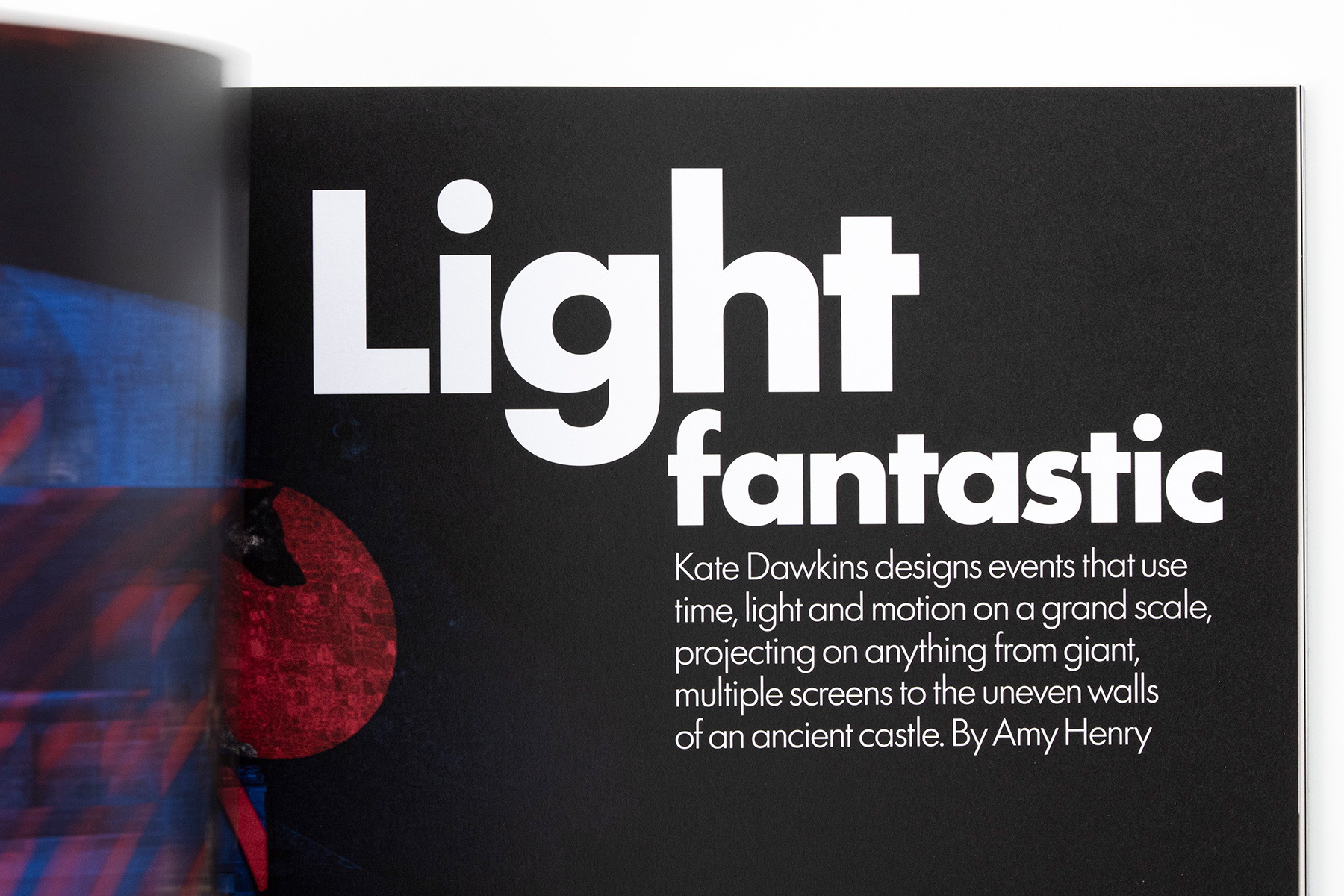
As a type foundry, we’re always delighted to see how our typefaces are being used. This joy was compounded when one of the world’s leading design journals, Eye Magazine, decided to use two of our type families exclusively in their newest issue.
The typefaces in question are our new Futura®100 multiscript type family, and the classic editorial newsface Abril, and we think their font pairing in Eye 109 is impeccable. Released in concert with Bauer Types, Futura®100 brings Paul Renner’s geometric sans serif to the world; its first 12 scripts include Armenian, Cyrillic, Georgian, Greek, Hebrew, Khmer, Lao, Latin, PanAfrican Latin, Thai (these ten with obliques), Arabic, and Myanmar.
Eye 109 pairs Futura®100 with Abril, a type family created by Veronika Burian and José Scaglione specifically for intensive editorial use in newspapers, magazines, and digital media. With 10 text styles and 12 display styles, Abril provides a strong and flexible text basis to work with in print and digital.